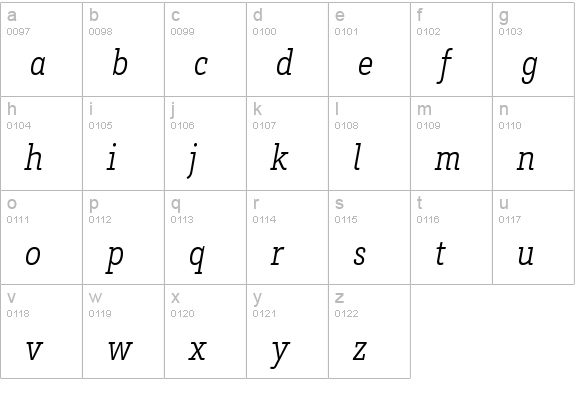
Brix Slab Cond Light Italic Font Details
Brix Slab Cond Light Italic is a refined, elegant, condensed-width, italic variant in the Brix typeface family \xE2\x80\x94 well suited to elegant body text, refined sub-headings, and luxury branding.
Brix Slab Cond Light Italic is a sleek and modern typeface that exudes sophistication and elegance. With its slim and stylish design, this font is perfect for adding a touch of refinement to any project. The italicized version of Brix Slab Cond Light adds a subtle sense of movement and flair to your text, making it stand out while maintaining a sense of professionalism. Best of all, this font is available for free download at FontsMarket.com. Whether you're working on a design project, creating a website, or crafting marketing materials, Brix Slab Cond Light Italic is a versatile and eye-catching font that will elevate your work to the next level. Don't miss out on the opportunity to enhance your designs with this beautiful typeface, now easily accessible for free at FontsMarket.com.